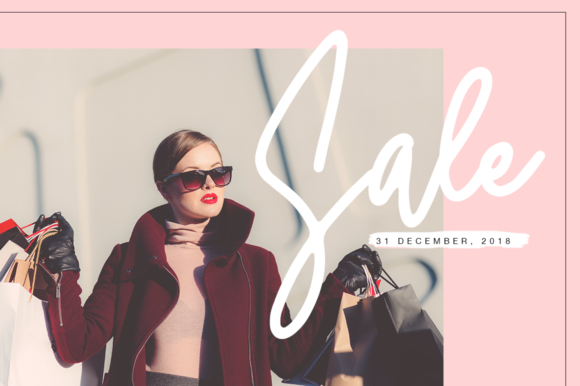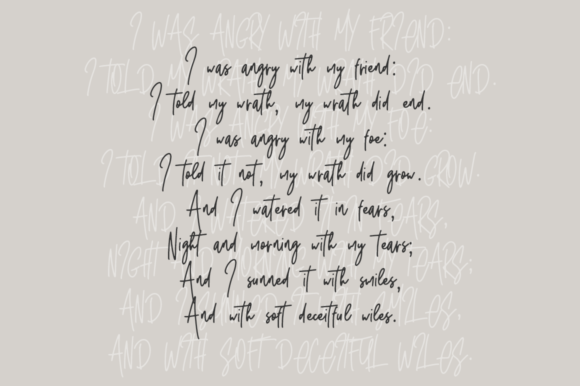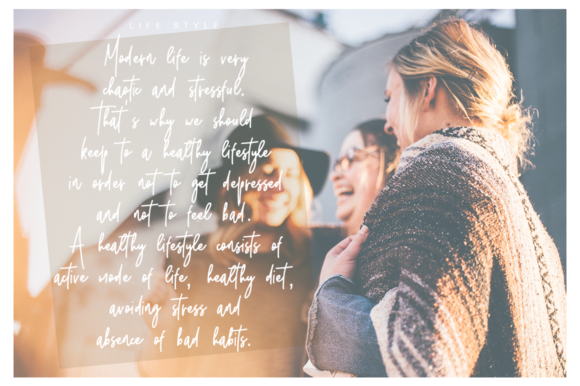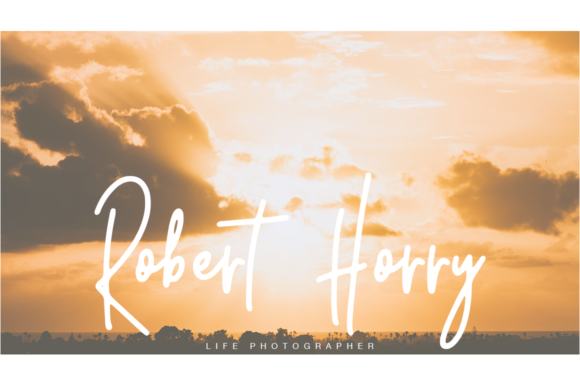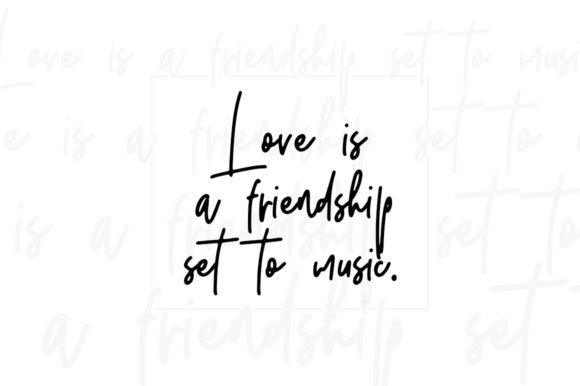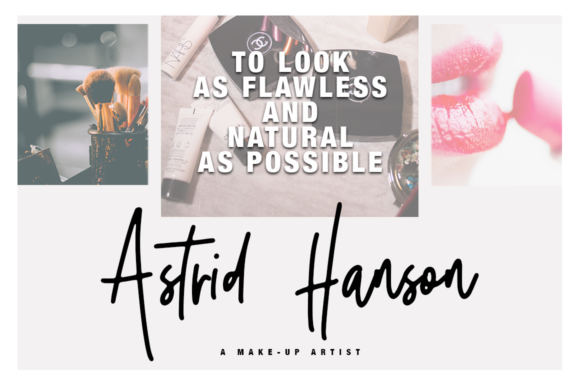
Scream Team Font
About Scream Team Font
The Scream Team is a fresh handmade calligraphy font.
It’s suitable for greeting cards, branding materials, business cards, quotes, posters, and more!